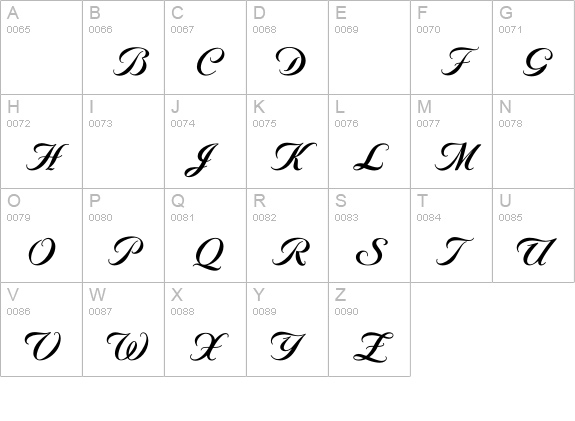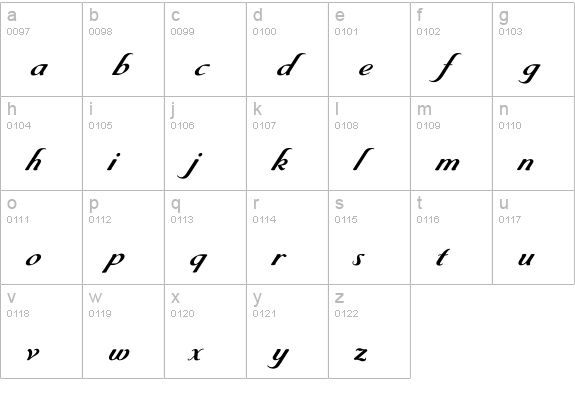
ByronBold Font Details
Introducing ByronBold, a sleek and sophisticated font that exudes elegance and modernity. This versatile typeface is perfect for a wide range of design projects, from branding to editorial layouts. With its bold lines and stylish curves, ByronBold commands attention and adds a touch of sophistication to any design. Best of all, ByronBold is available for free download at FontsMarket.com. This means you can easily access this stunning font and incorporate it into your projects without breaking the bank. Whether you're a seasoned designer or just starting out, ByronBold is sure to elevate your designs and make a lasting impression. Download ByronBold today and take your designs to the next level!